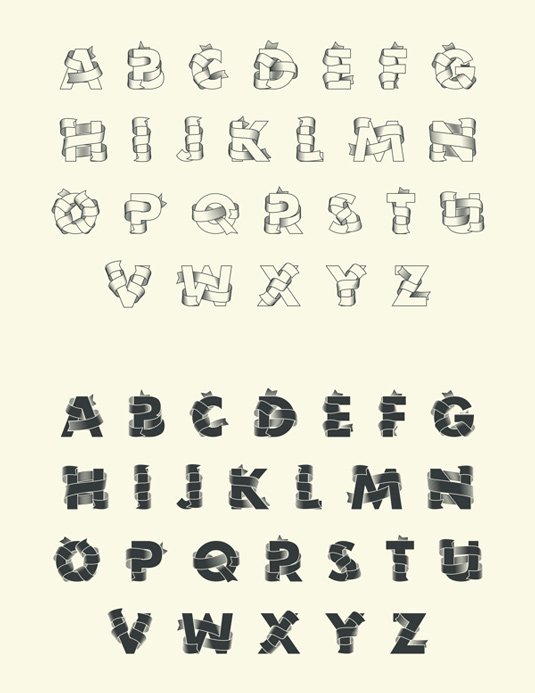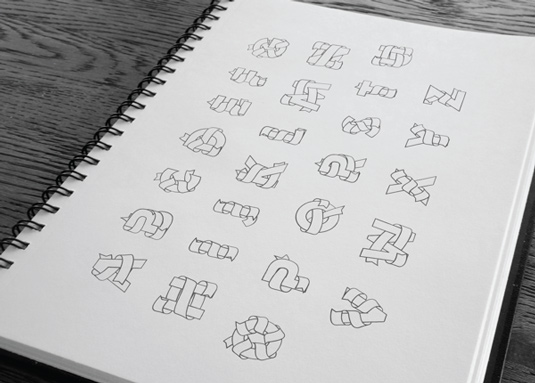
Font of the day: Unveil
Unveil by Tré Seals
This unique display typeface Unveil was created by design student Tré Seals. "Made out of Futura and a lot of illustration, this font is perfect for a variety of applications," Seals comments on Behance.
"It's great for that suprise party, baby shower or block party invitation you're working on, and for those magazine spreads that require a special drop cap. This vector font comes in five different styles that allow you to layer them any way you see fit."